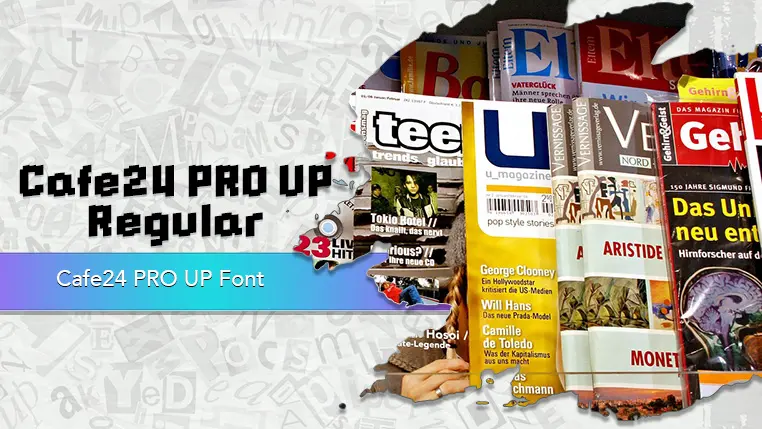
The Cafe24 PRO UP font family may be ideal for you if you enjoy working on an artistic design project. The lively, expressive look of this typeface, which was created by Cafe24, makes it ideal for Headlines and Titles, Designs that require a strong visual statement, such as event posters, banners, and advertising campaigns, Cafe24 PRO UP can be very effective. In magazines or online articles, it can be used for pull quotes or section titles to break up text and add visual interest. and other light-hearted visual projects.
Regular are the one primary font styles of the Cafe24 PRO UP font family. You may build dynamic, visually appealing text layouts with the distinct flair that each style offers. With crisp, readable lines and a relaxed tone.